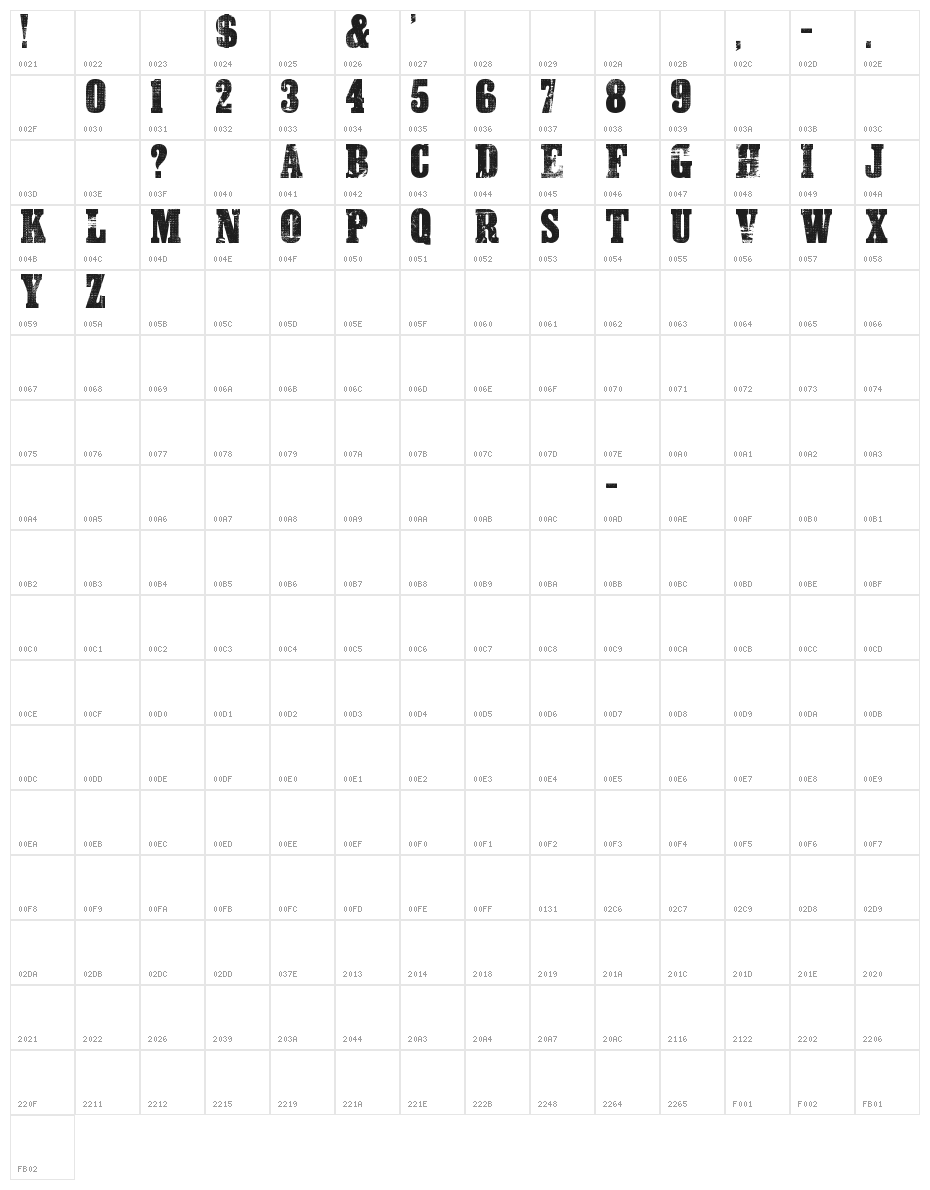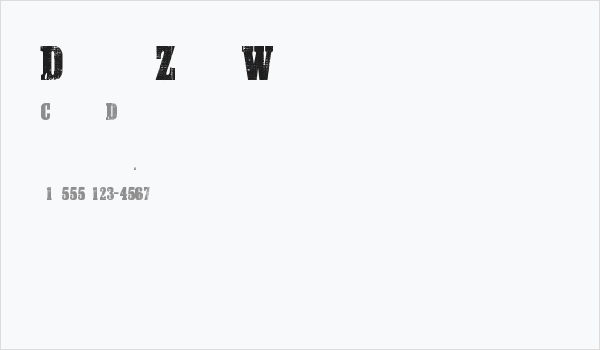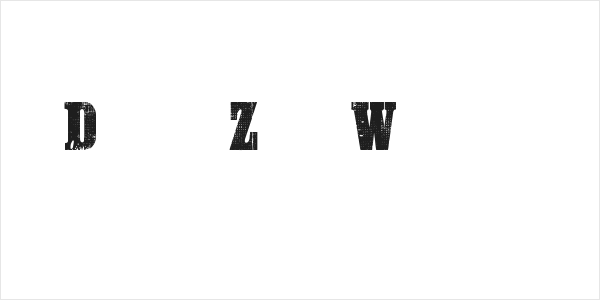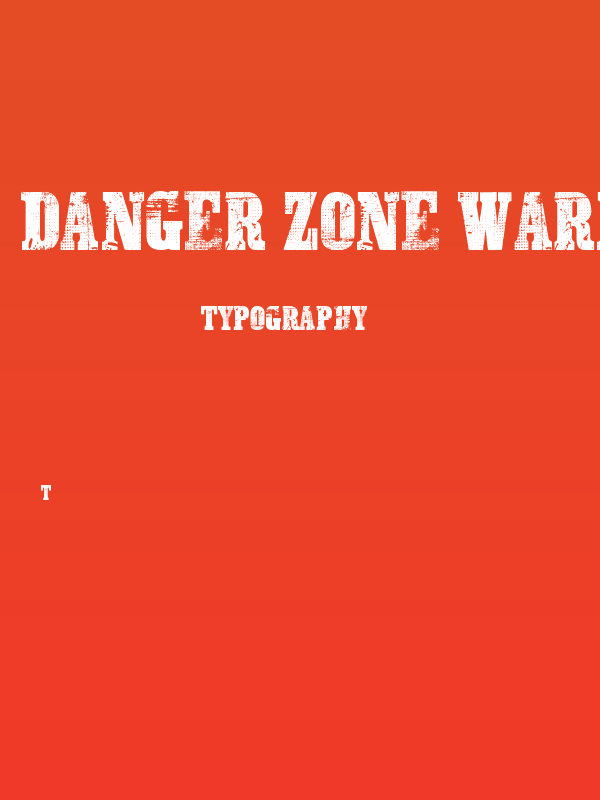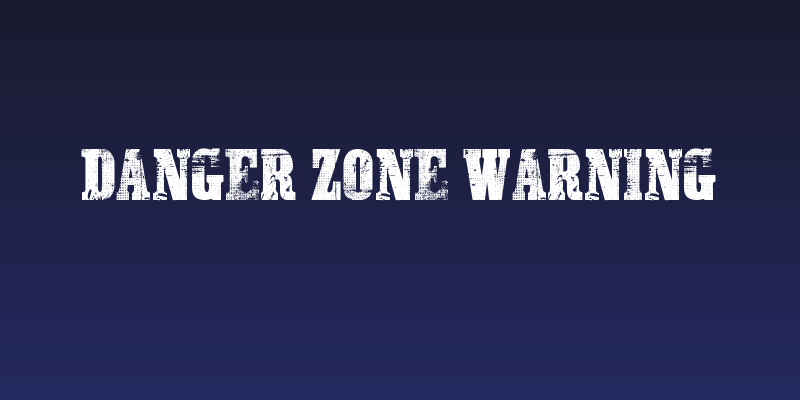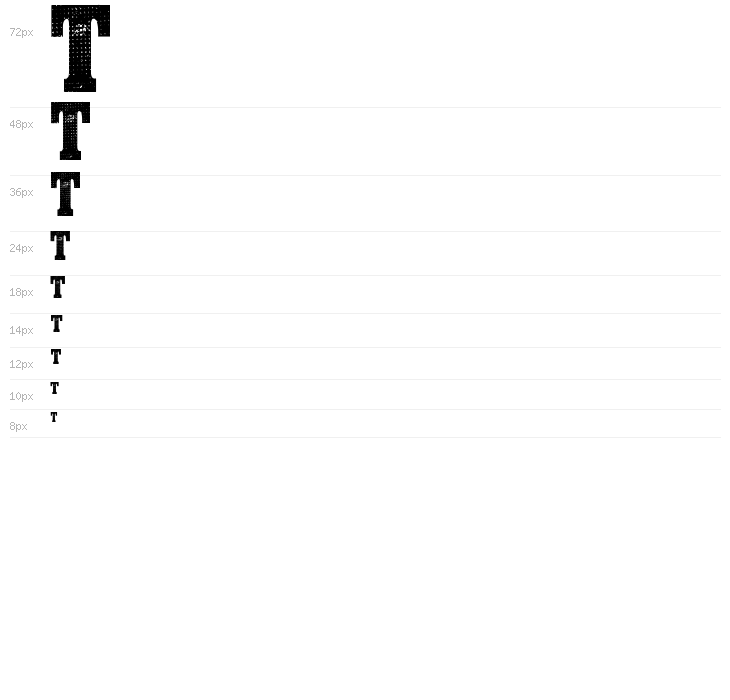
Danger Zone Warning Font
Danger Zone Warning Description
This font features a bold, distressed style with a gritty, textured appearance that evokes a sense of ruggedness and toughness. The characters are heavily stylized with a worn-out look, making them ideal for creating a dramatic impact. The uppercase letters are prominent and commanding, while the numbers and special characters maintain the same distressed aesthetic. The font's unique design is reminiscent of industrial or grunge themes, making it suitable for projects that require a bold and edgy statement.
| Overall Style | Grunge, Industrial |
| Proposed Projects | Ideal for posters, album covers, event flyers, or any project needing a bold, edgy look. |